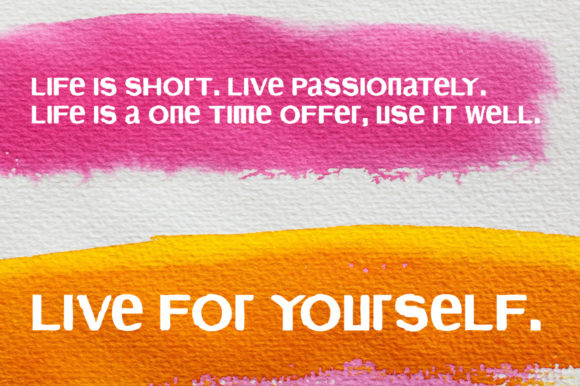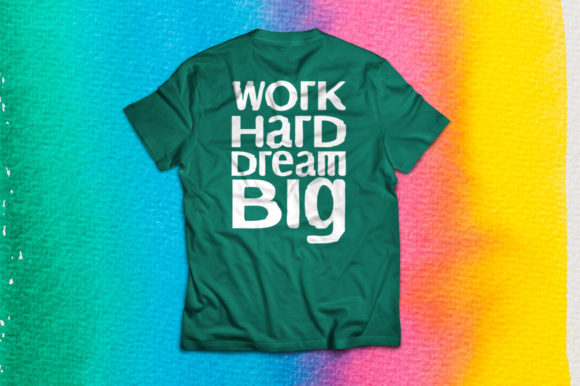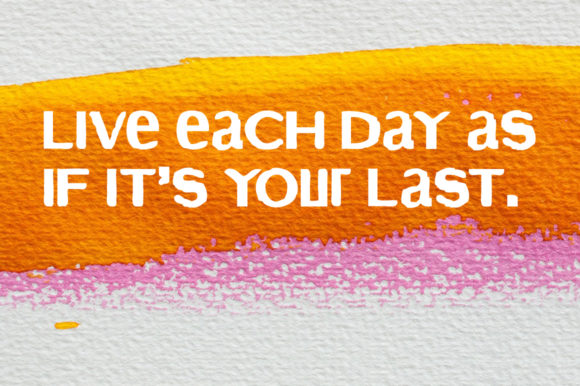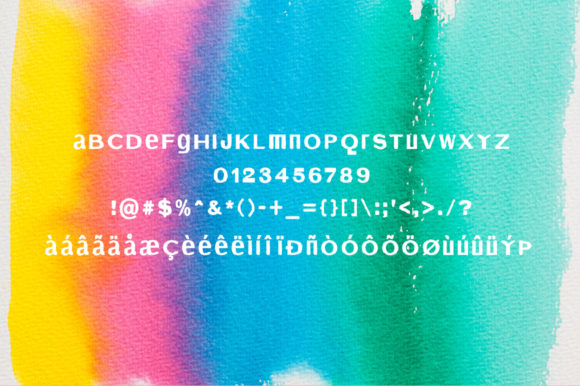
A Fresh Splash of Creativity with Aquiver Font
Have you ever stared at a blank page, waiting for the perfect idea to strike? That’s exactly what happened to me the other day. I was brainstorming ideas for a new project when suddenly, a wave of inspiration hit me – I envisioned a font that would bring a touch of elegance and playfulness to any design. And that’s when I stumbled upon the Aquiver Font, a brand new display font that’s about to revolutionize the world of design.
The Aquiver Font is designed to add a dash of sophistication and whimsy to any project. Whether you’re working on stationery, logos, or even music covers, this font is perfectly suited to make your designs stand out. As a designer, you’ll appreciate the versatility and expressiveness of the Aquiver Font, which makes it an invaluable addition to your toolkit.
Aquiver Font Key Features
- Font Size: The font family consists of multiple weights, ranging from 100 to 900, allowing for precise control over font size and weight.
- Resolution: Aquiver Font is designed to work seamlessly at high resolutions, making it ideal for digital applications, including web design, mobile apps, and print materials.
- Unique Characteristics: This font features a unique, hand-drawn aesthetic with subtle texture and organic feel, setting it apart from more traditional font styles.
- Language Support: Aquiver Font includes comprehensive language support, covering Latin, Cyrillic, and Greek scripts, as well as various diacritical marks and symbols.
- Kerning and Ligatures: The font includes carefully crafted kerning and ligature pairs, ensuring smooth text rendering and professional-looking typography.
Aquiver Font Review
When I first laid eyes on the Aquiver Font, I was immediately drawn to its unique, energetic vibe ✨. The font’s wavy lines and fluid curves give it a dynamic feel that’s perfect for projects that need a touch of excitement. I also appreciate how the font comes in multiple weights, making it easy to customize the look to suit different design needs.
- ✨ Unique, energetic vibe that’s perfect for projects that need a touch of excitement.
- ✨ Multiple weights available, making it easy to customize the look.
- ✨ Works well for titles, headings, and other prominent text.
However, I do have a few concerns about the font’s limitations ⚠️. One issue is that the font can be quite busy and overwhelming, especially when used in large blocks of text. This can make it difficult to read and may not be suitable for projects where clarity is a top priority.
- ⚠️ Can be too busy and overwhelming for large blocks of text.
- ⚠️ May not be suitable for projects where clarity is a top priority.
Overall, I think the Aquiver Font is a great choice for designers who want to add some excitement to their projects. While it may not be the best fit for every project, it’s definitely worth considering for those that need a bold, eye-catching font.
Getting the Most Out of Aquiver Font
To get the most out of Aquiver font, try using it in combination with other creative fonts and experimenting with different font sizes and styles.
Use Aquiver font to add a touch of elegance and sophistication to your designs.
Aquiver font is perfect for:
- Business cards and resumes.
- Magazine and book covers.
Alternatives to Aquiver Font for Designers
Aquiver Font is a modern, sans-serif font known for its clean lines and versatility. If you’re looking for alternatives, here are a few options:
Montserrat Font is a geometric sans-serif font designed for digital use. It’s perfect for headlines and titles, especially in urban and modern designs. Montserrat Font has a more geometric feel compared to Aquiver Font, which is more rounded. It’s a great choice for designs that require a strong, modern look.
Open Sans Font is a popular, open-source sans-serif font that’s highly legible. It’s ideal for body text and paragraphs, as it provides a clear and easy-to-read experience. Open Sans Font is more rounded and friendly compared to Aquiver Font, making it suitable for designs that require a warm and approachable tone.
Q: What are the recommended font sizes for optimal readability with Aquiver Font?
For optimal readability, we recommend using font sizes between 12pt and 18pt for body text and 24pt or larger for headings. This will ensure the font remains legible on a variety of screen resolutions and devices.